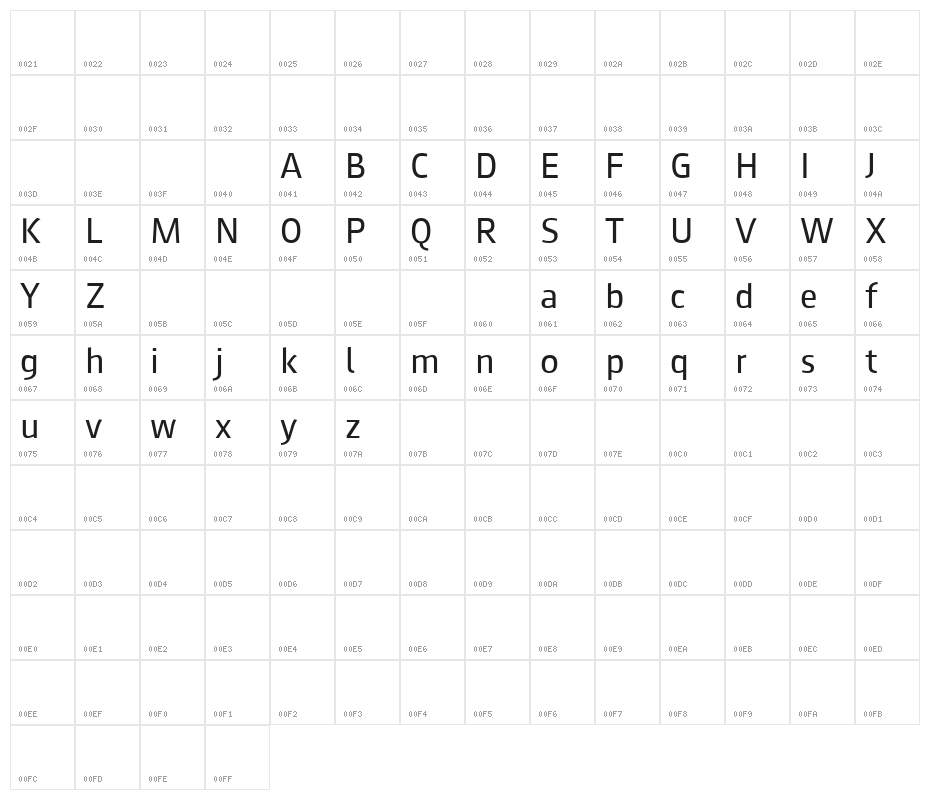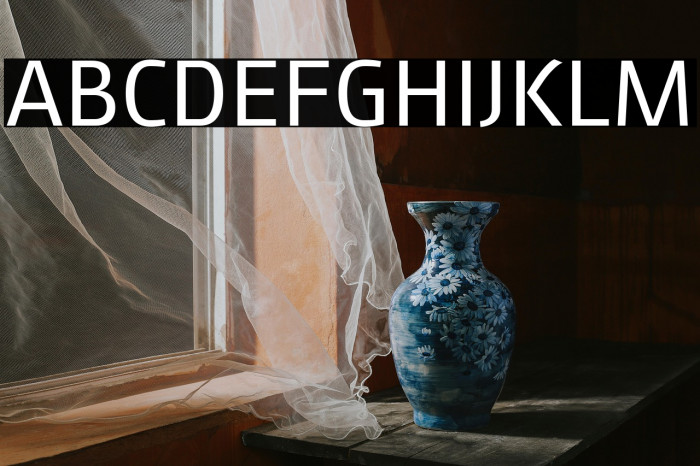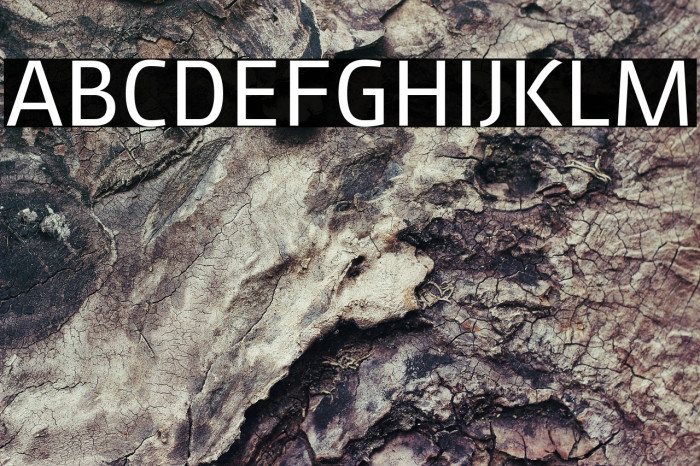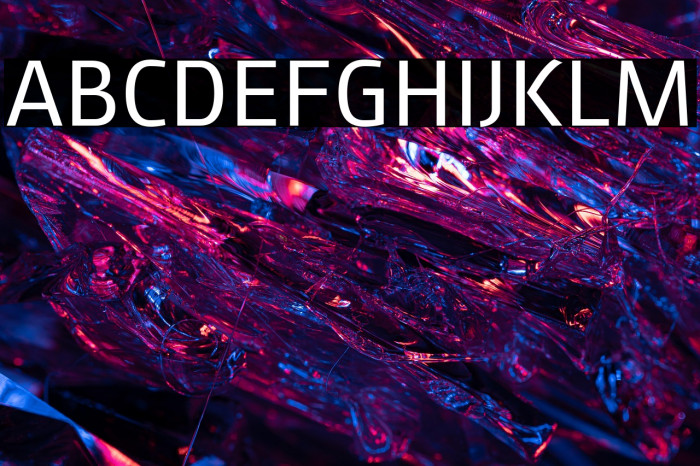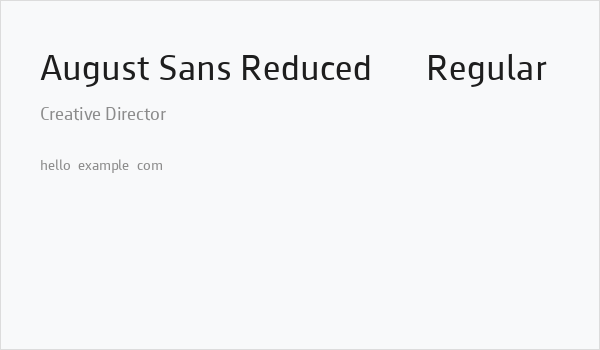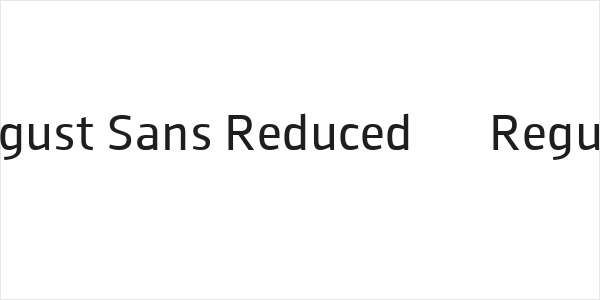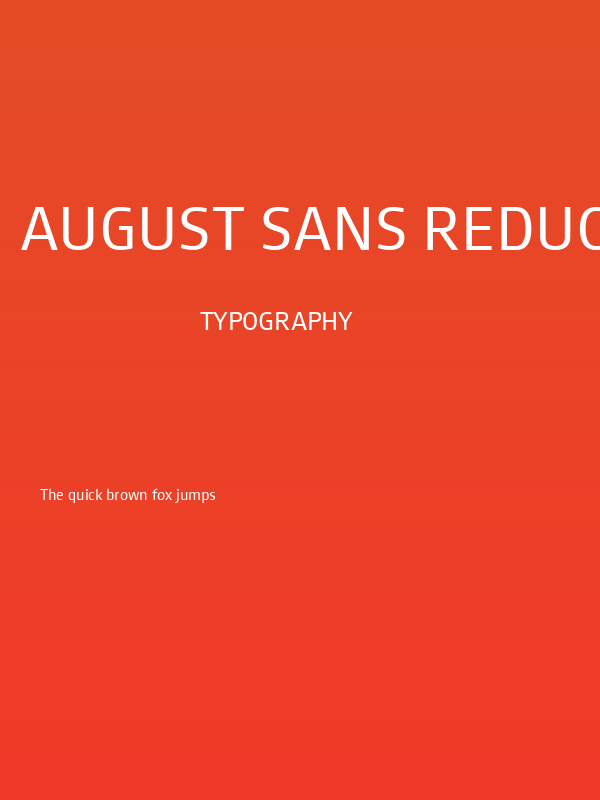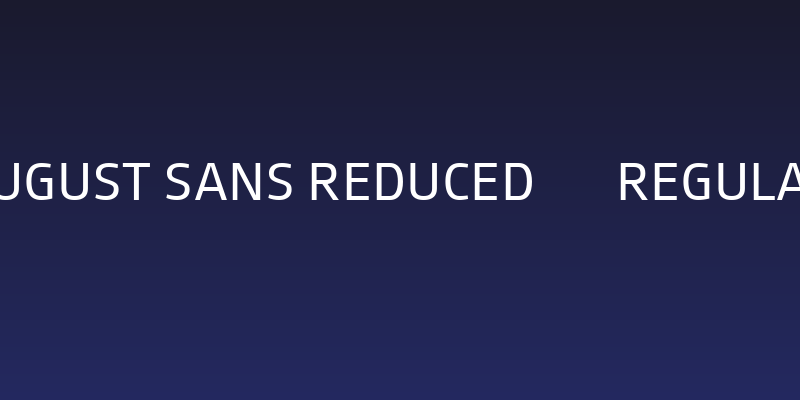
August Sans Reduced 55 Regular Font
August Sans Reduced 55 Regular Description
This typeface features a clean and modern sans-serif design, characterized by its simplicity and clarity. The letters are evenly spaced with a consistent stroke width, providing a balanced and harmonious appearance. The uppercase letters are bold and assertive, while the lowercase letters maintain a friendly and approachable feel. The numerals are clear and easy to read, making them suitable for various applications. The special characters are well-integrated, ensuring versatility in design projects.